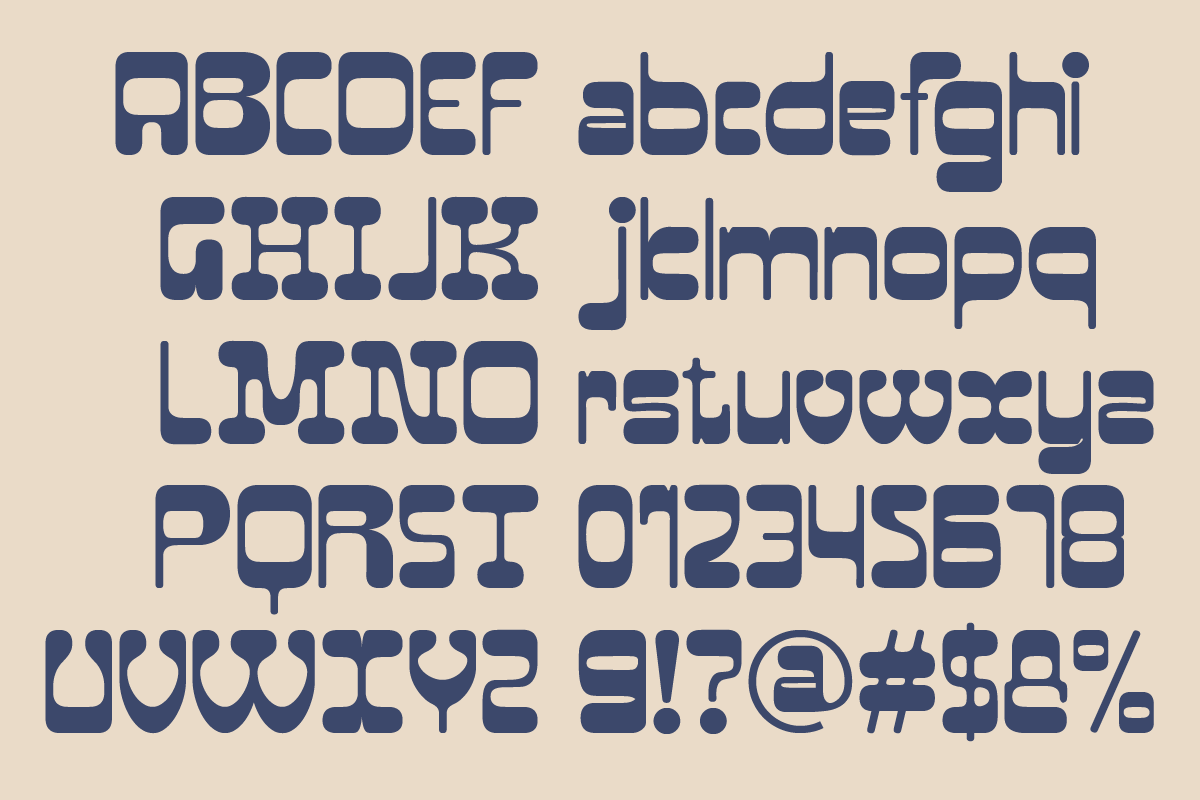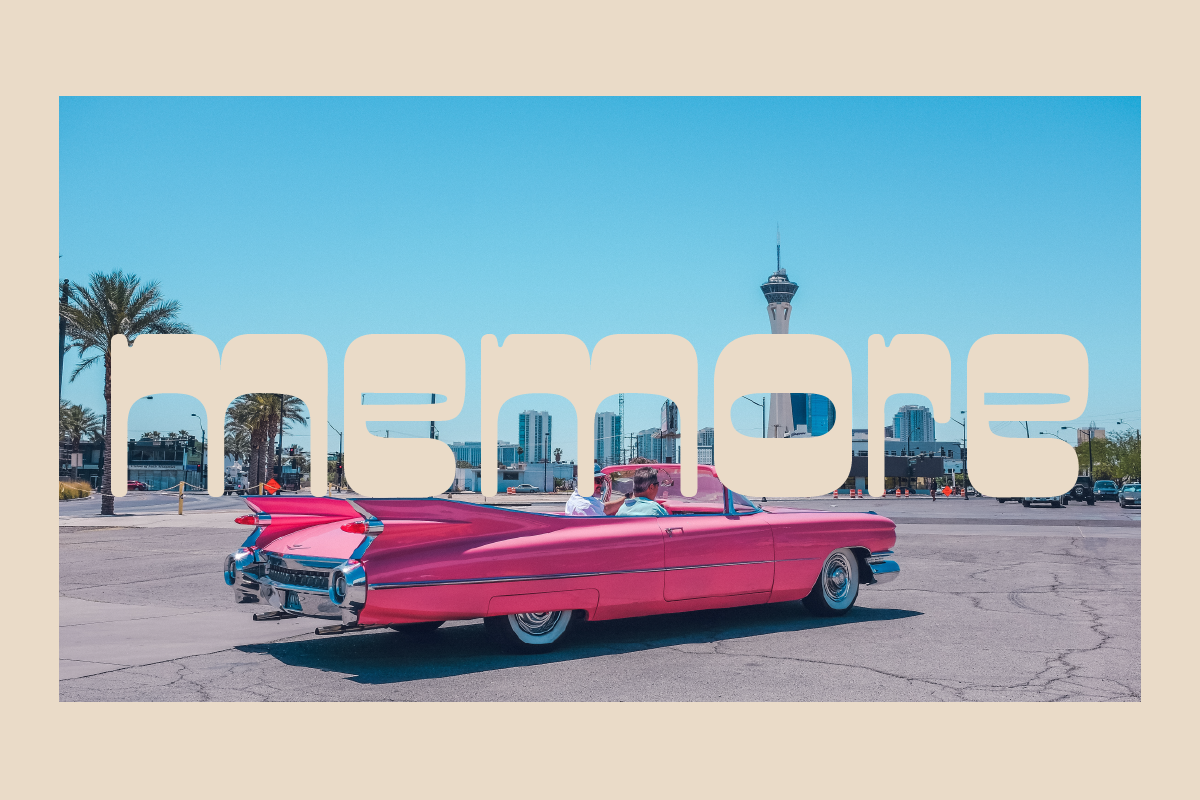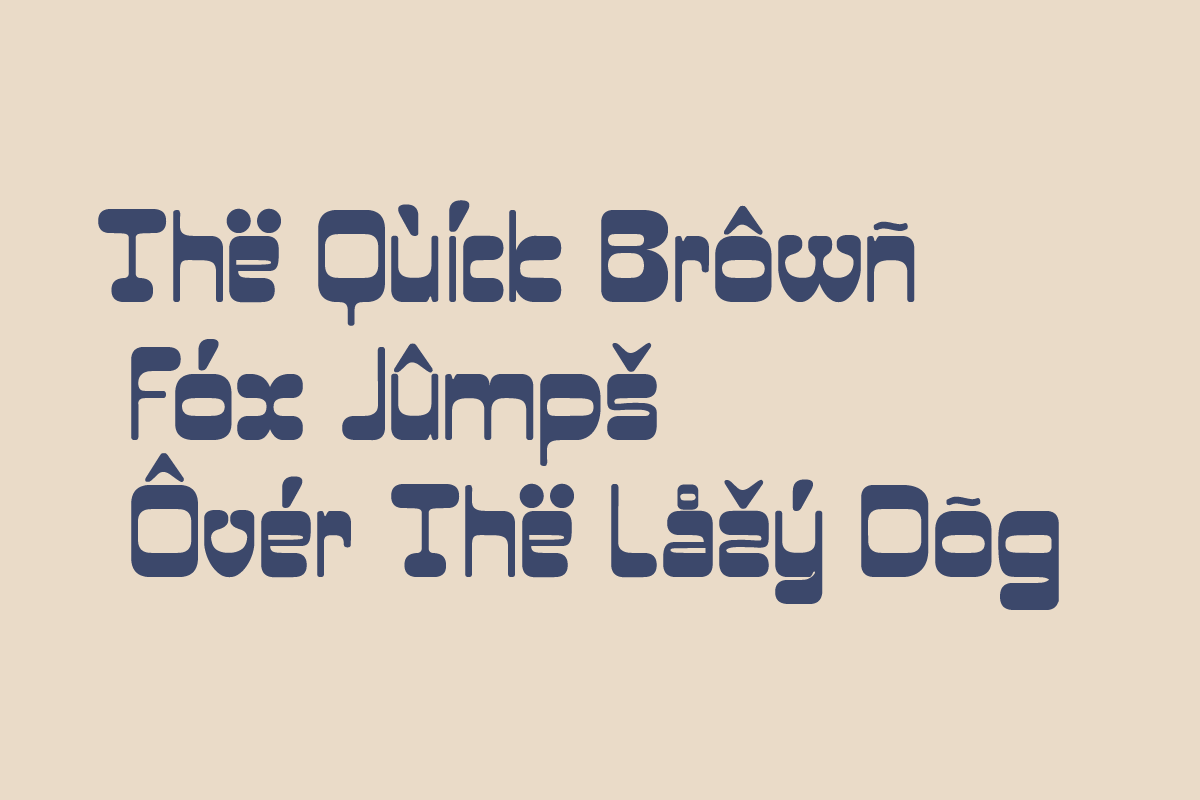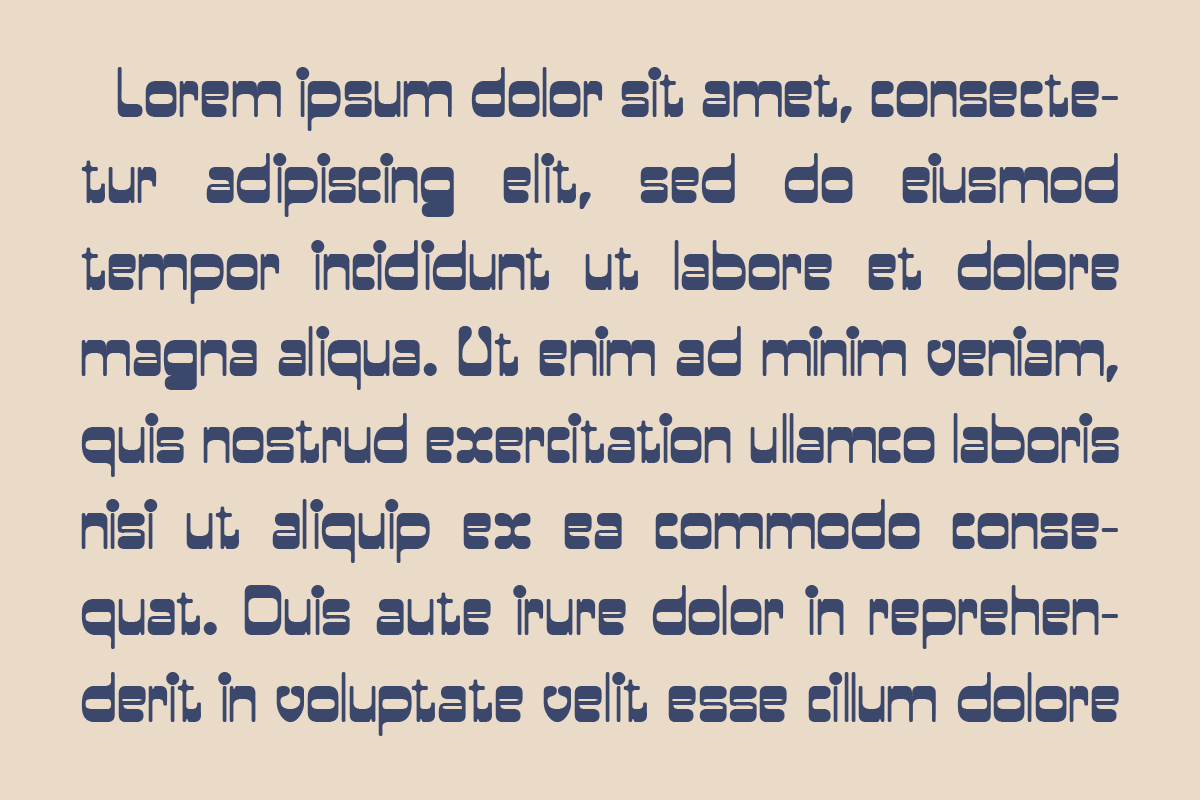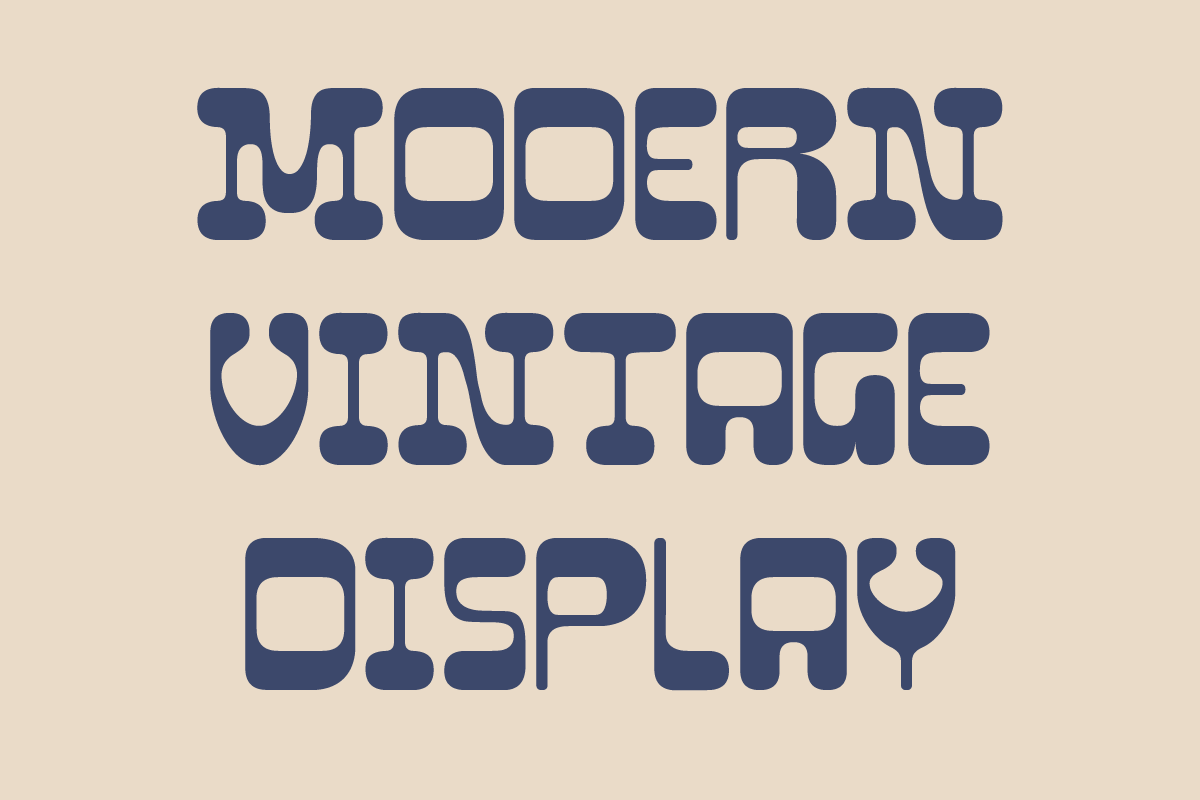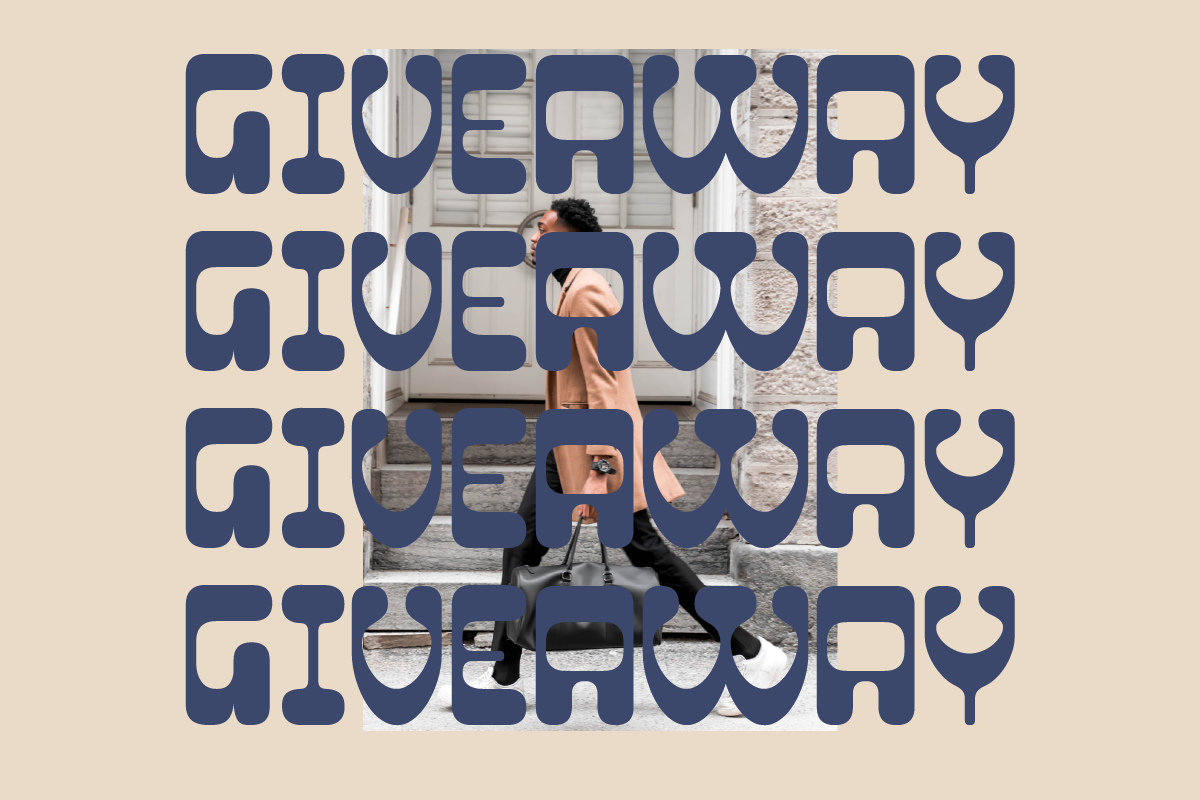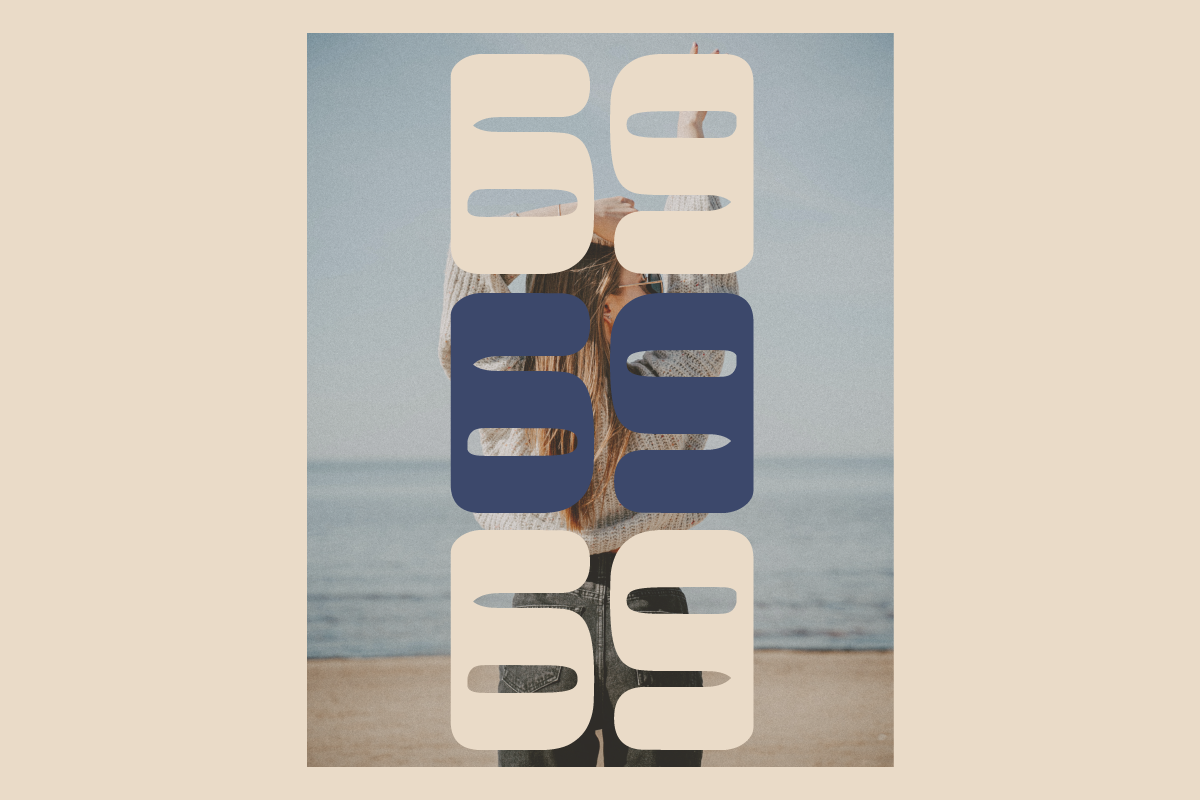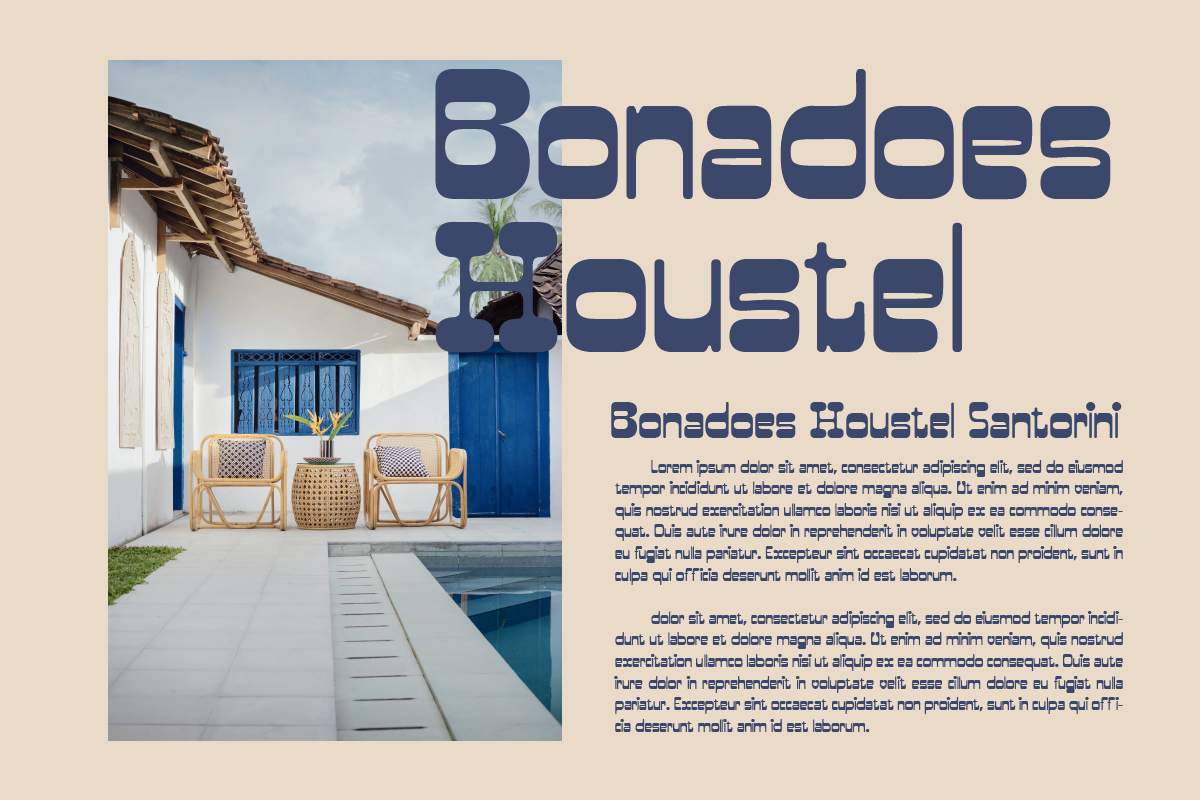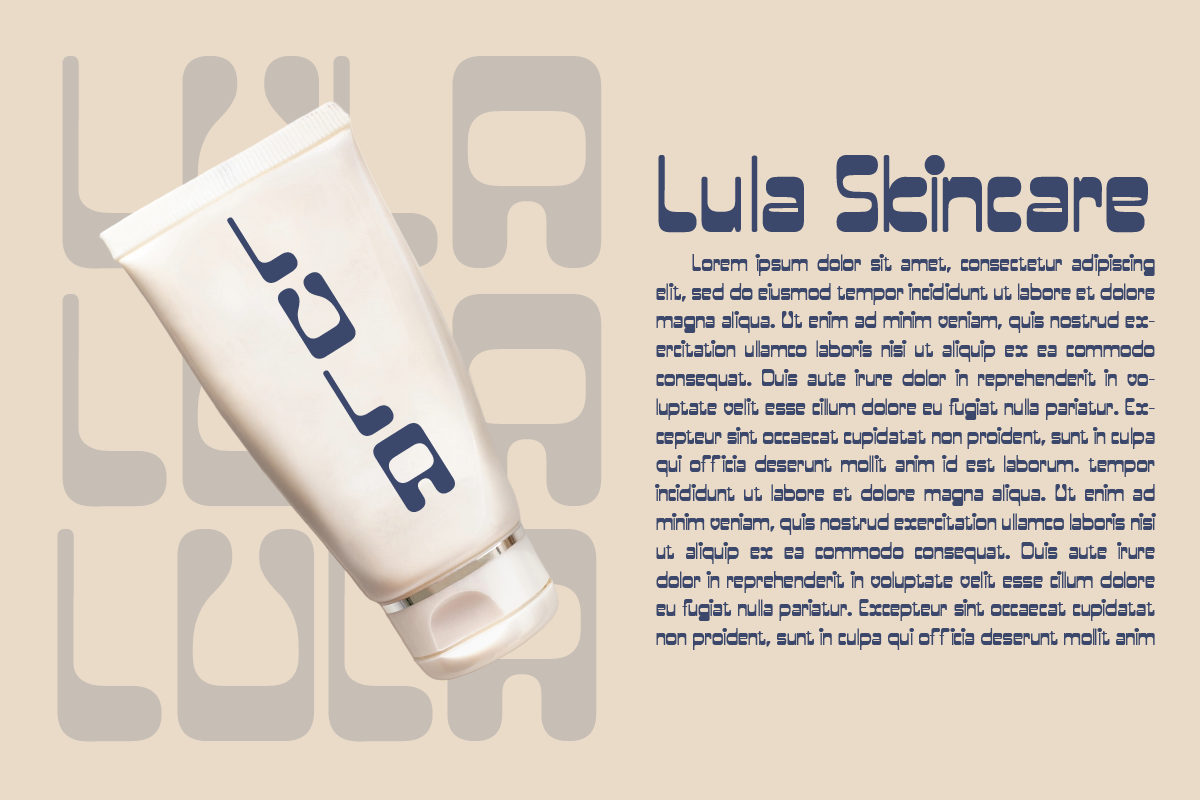
Malachai
Malachai Modern Vintage Display Font, special glyphs, ornament and multilingual support. It's a very versatile font that works great in large and small sizes. Perfect for editorial projects, Logo design, Clothing Branding, product packaging, magazine headers, or simply as a stylish text overlay to any background image.